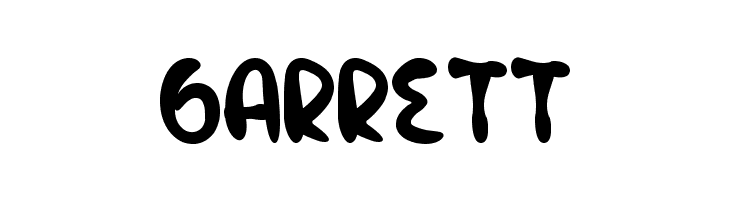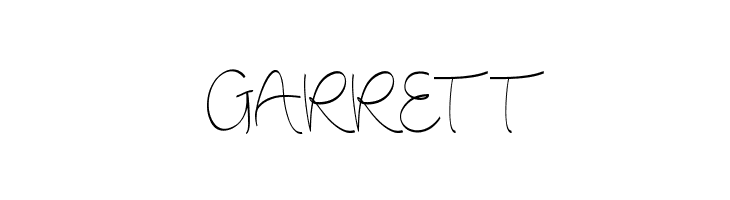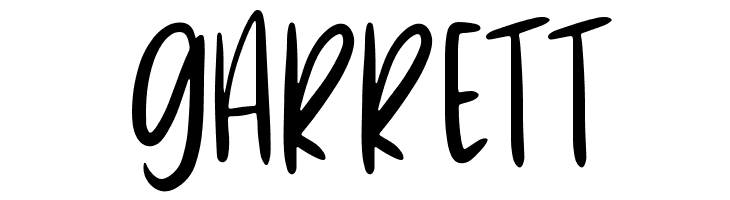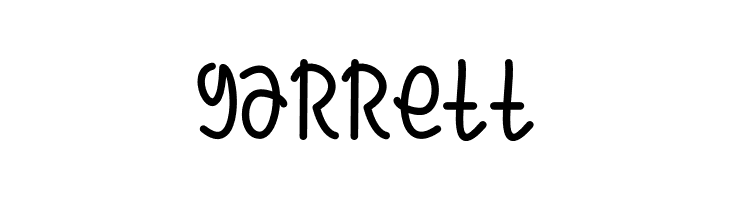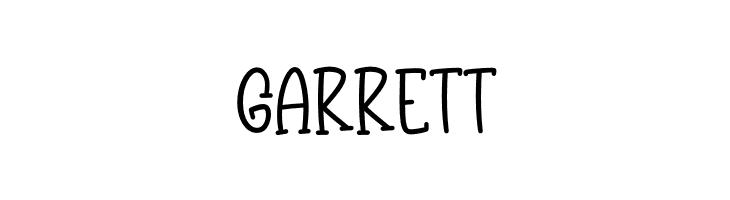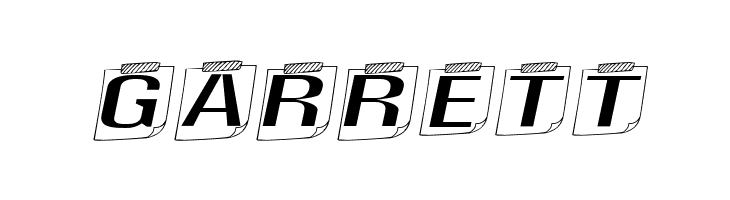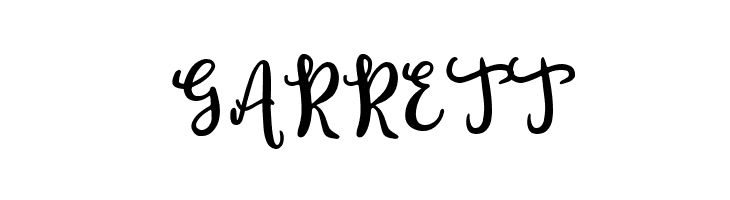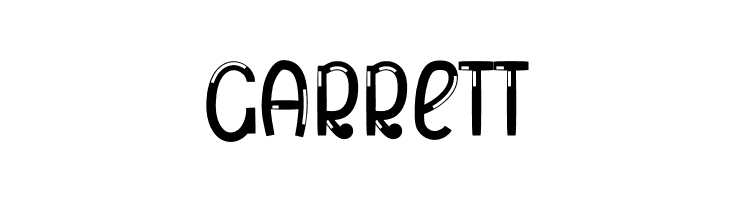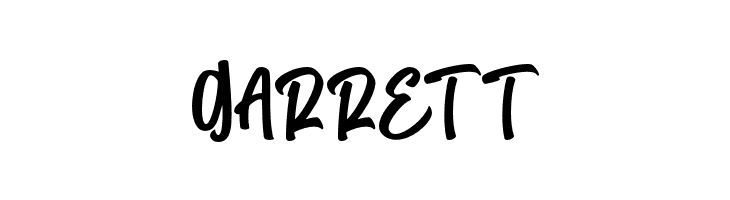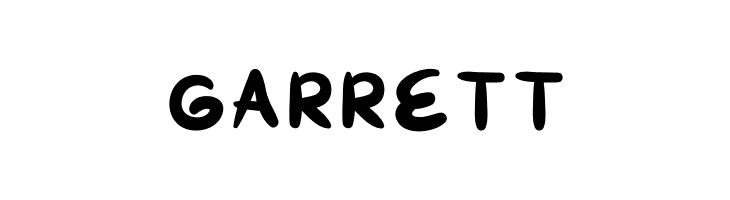
• Cute Lovely Demo
A playful, bold font with heart-shaped accents and rounded characters.
• Cute Maple
A bold, playful font with a hand-drawn, cartoonish style.
• Cute Melody
A playful, handwritten font with bold, irregular strokes and a whimsical charm.
• Cute Molly
A playful handwritten font with a whimsical and creative style.
• cute monster
A bold, playful font with rounded, cartoonish letters.
• Cute Notes
A playful, hand-drawn font with characters in irregular squares, perfect for fun and creative projects.
• Cute Notes Italic
A playful, italicized font with a notebook page background, ideal for creative and informal projects.
• Cute Pinkies
A playful, handwritten font with bold, smooth strokes and a whimsical style.
• CUTE RABBIT
A playful, bold font with a whimsical, hand-drawn style.
• Cute Rainbow
A playful, rounded font with a whimsical and friendly style.
• Cute Script
A playful, hand-drawn script font with whimsical decorative elements.
• Cute Smile Demo
A playful, handwritten font with a friendly and whimsical style.
• Cute Snow
A playful, snowflake-adorned font perfect for festive and cheerful designs.
• Cute Thing Script (Demo)
A playful, whimsical script font with a handwritten, cursive style.
• Cute Tuna
A playful, handwritten font with bold, rounded characters.
• Cute Vampire
A playful, hand-drawn font with a whimsical and informal style.
• Cute Vampire
A playful, hand-drawn font with a whimsical and informal style.
• Cute Woman Regular
A playful handwritten font with a smooth, casual style.
• CuteAsAButton
A playful, handwritten font with a whimsical and casual style.
• CuteBabyRegular
A playful, handwritten font with a whimsical and friendly style.
• CuteFaces